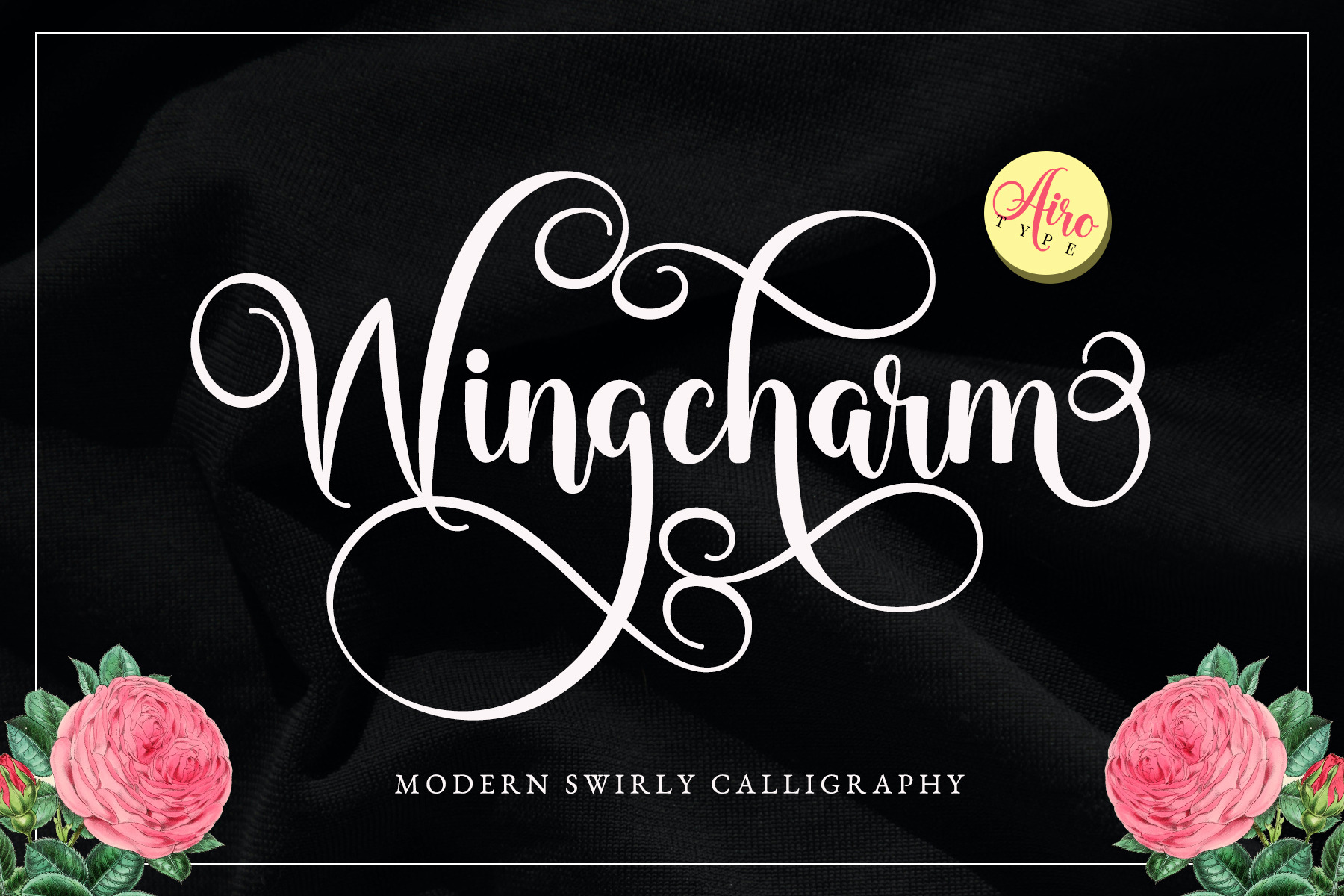
Introducing modern elegant calligraphy script with swirl vibes "Wingcharm".
Wingcharm is beautiful modern script with elegant touch. It has lots of swirl extra glyphs to give options in designing.
Wingcharm swirly font is perfect font for any projects, such as wedding invitation, christmas design, branding, logo, lettering, crafting, sticker, sublimation, and many more.